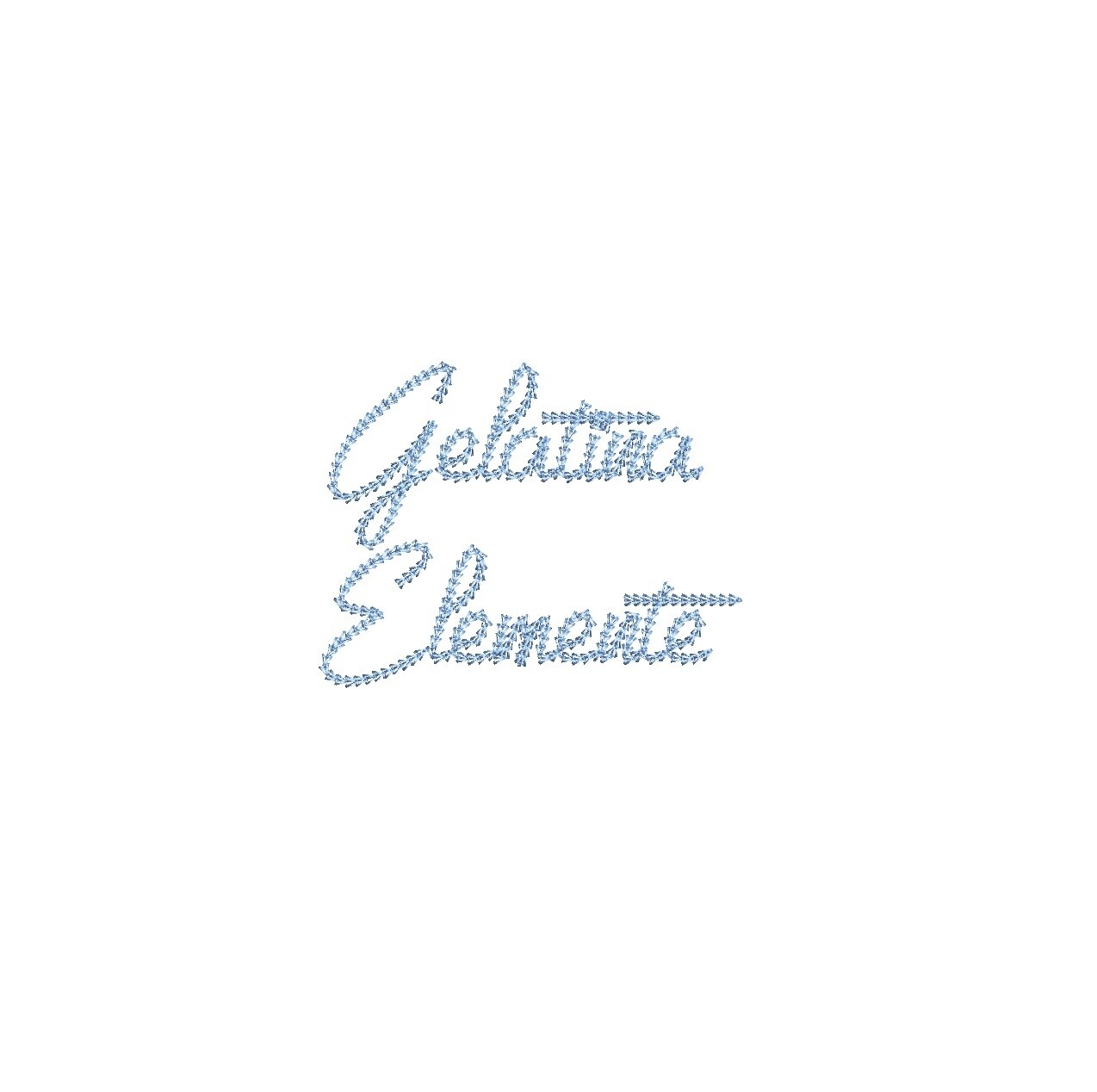
Elevate your embroidery with the Gelatina Elemente Chain Stitch ESA font. Tailored for Wilcom Studio e4.5.6 and Hatch 3 versions and newer, it adds a unique touch to your designs. Meticulously crafted, the font's chain stitch artistry enhances depth and allure in every project. Seamlessly integrate for captivating results that stand out. Gelatina Elemente transforms fabric into a canvas of innovation with its versatile charm. Elevate your embroidery with this seamless blend of technology and artistry. Experience the power of Gelatina Elemente Chain Stitch ESA font to redefine stitching excellence. Upgrade your designs today for distinct impact.